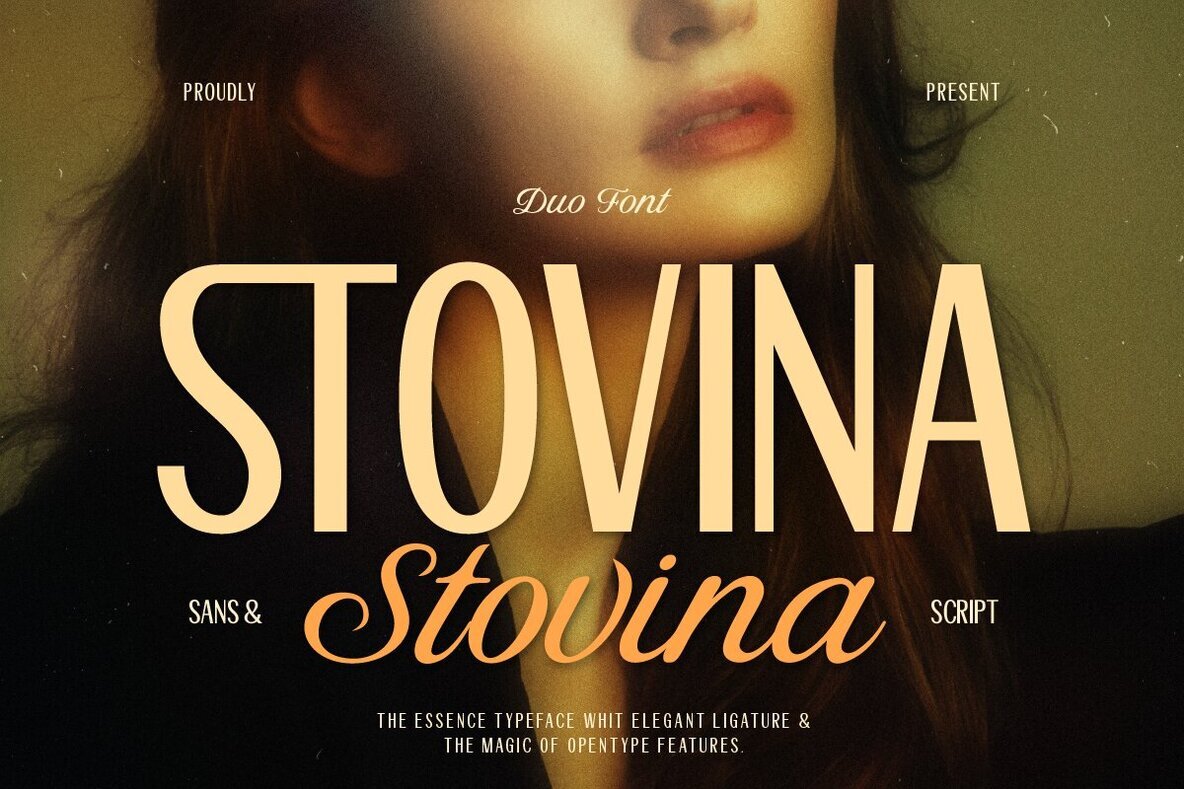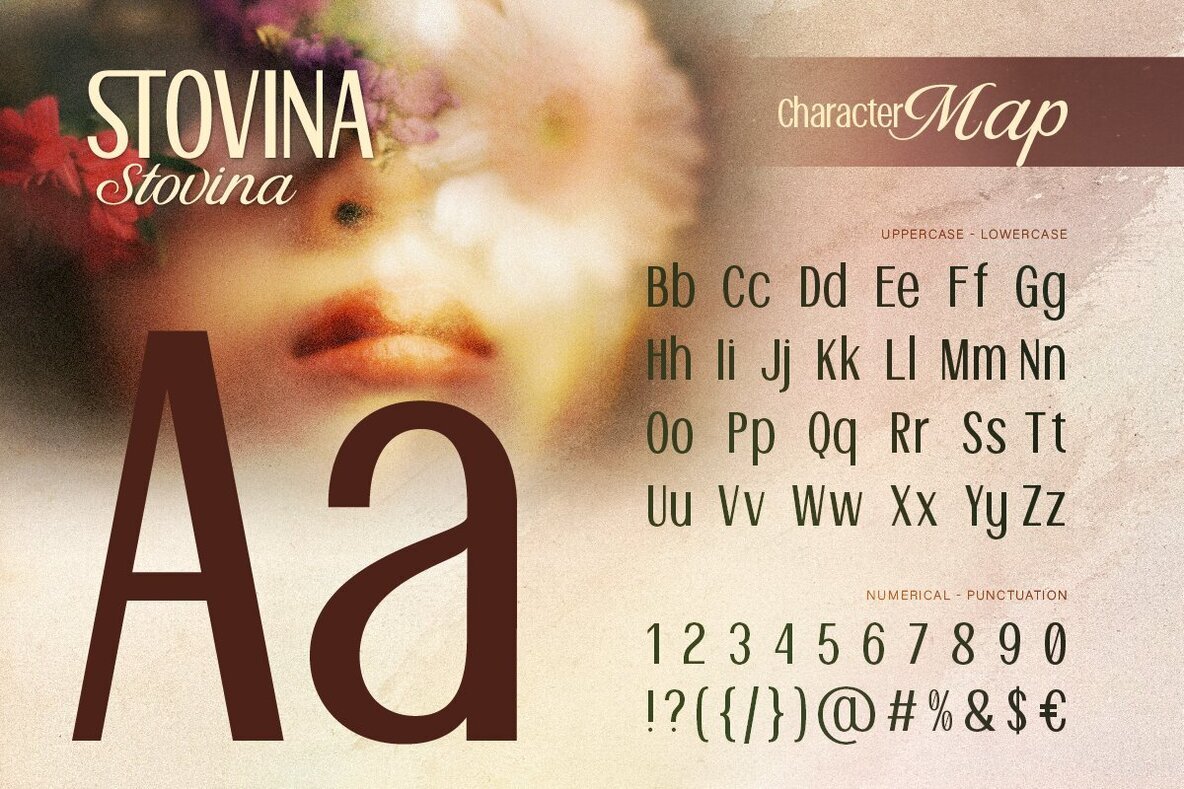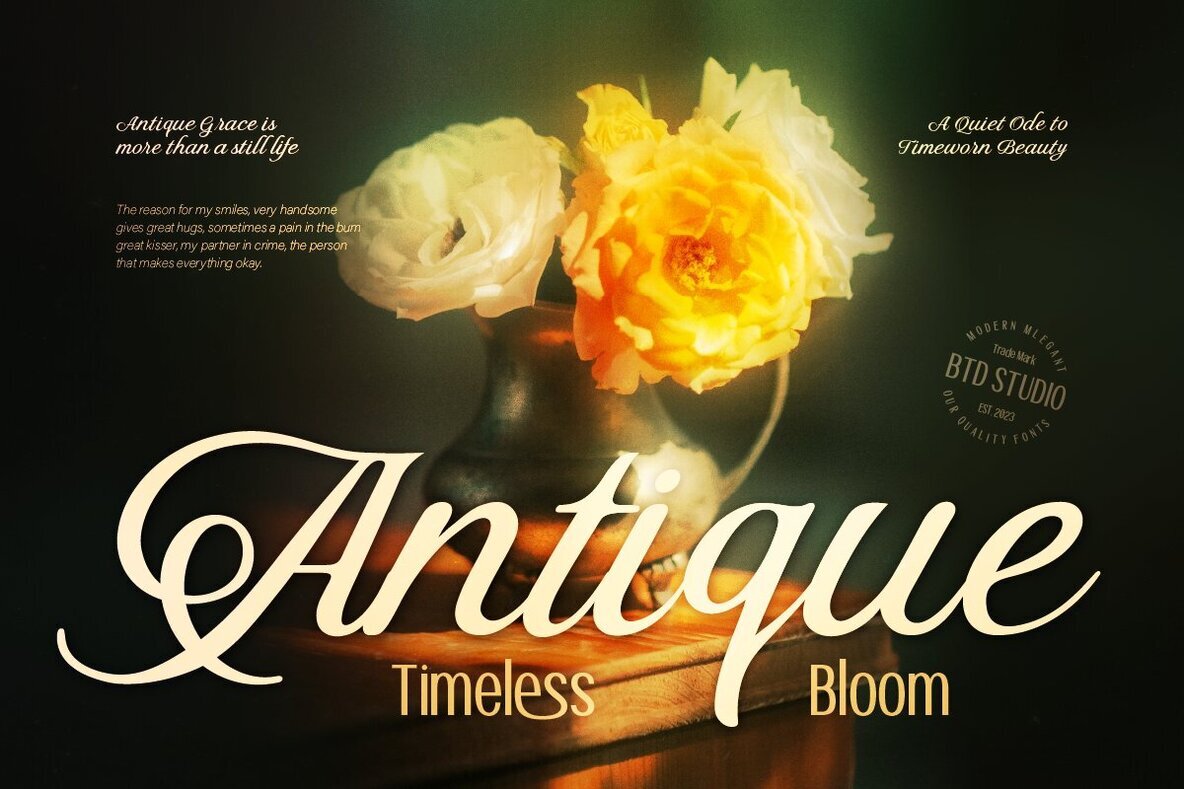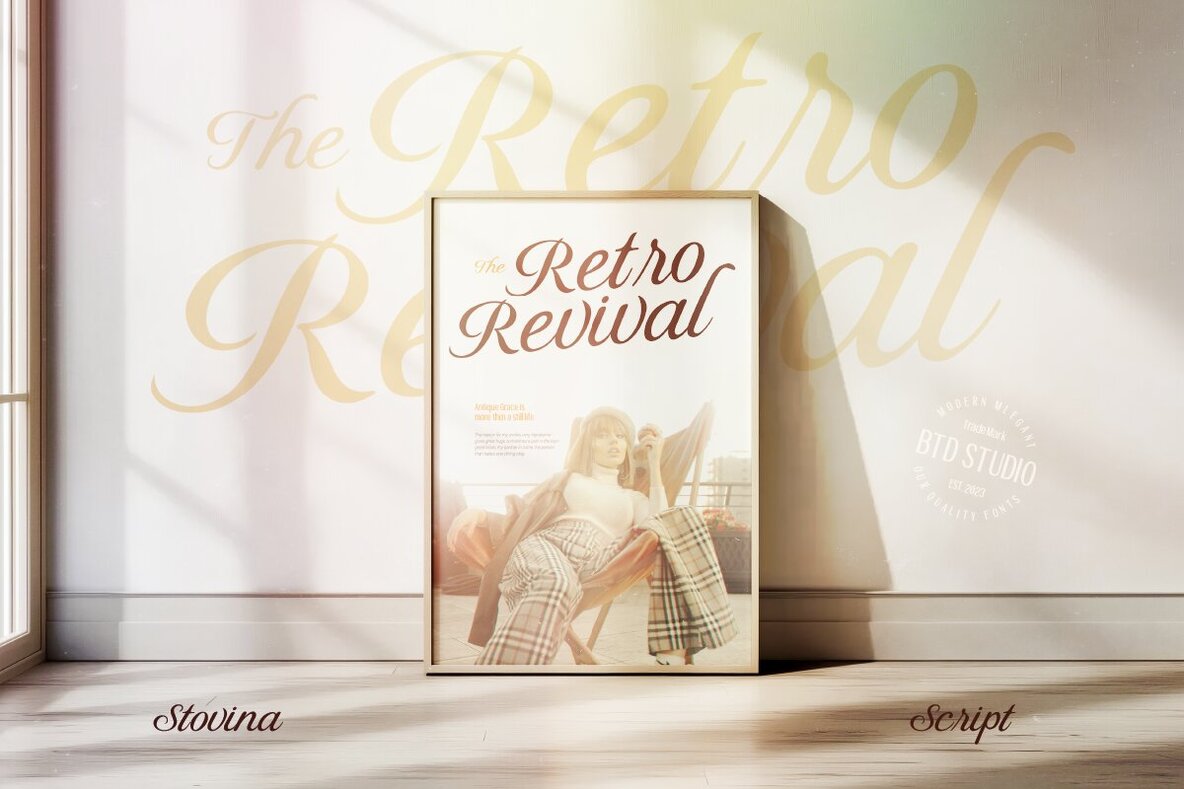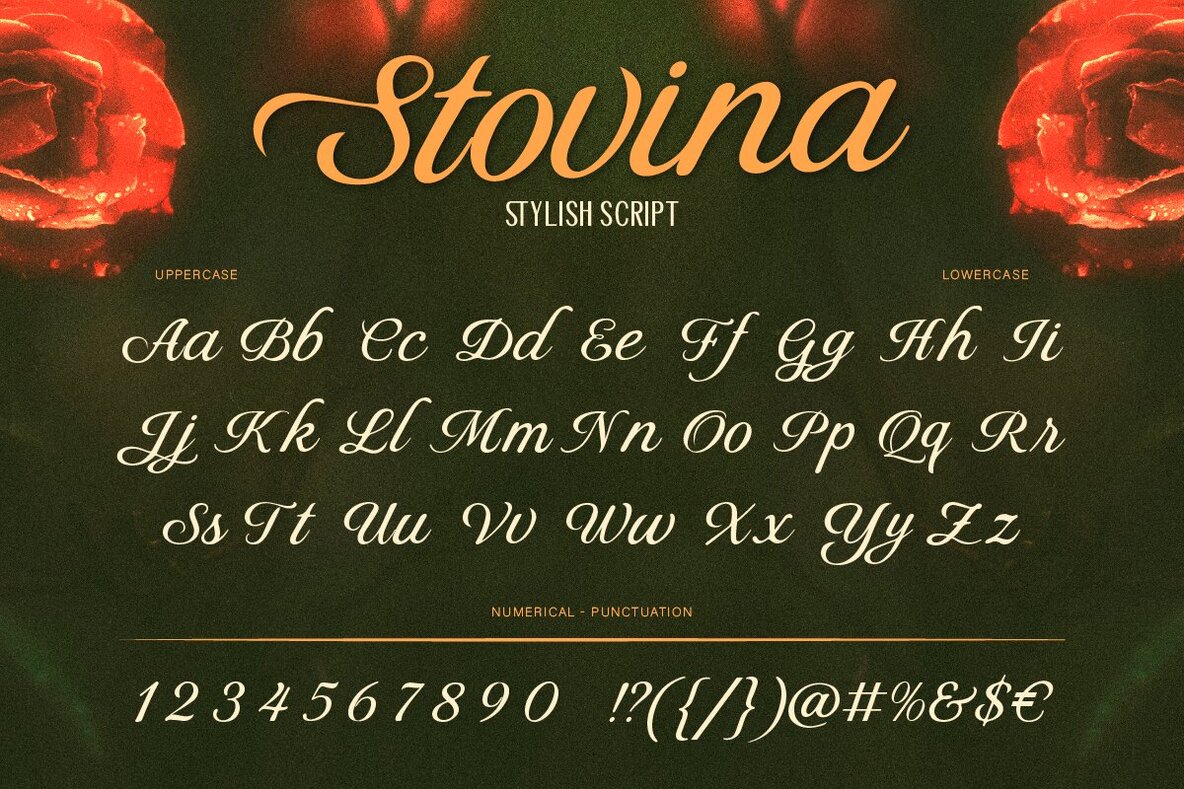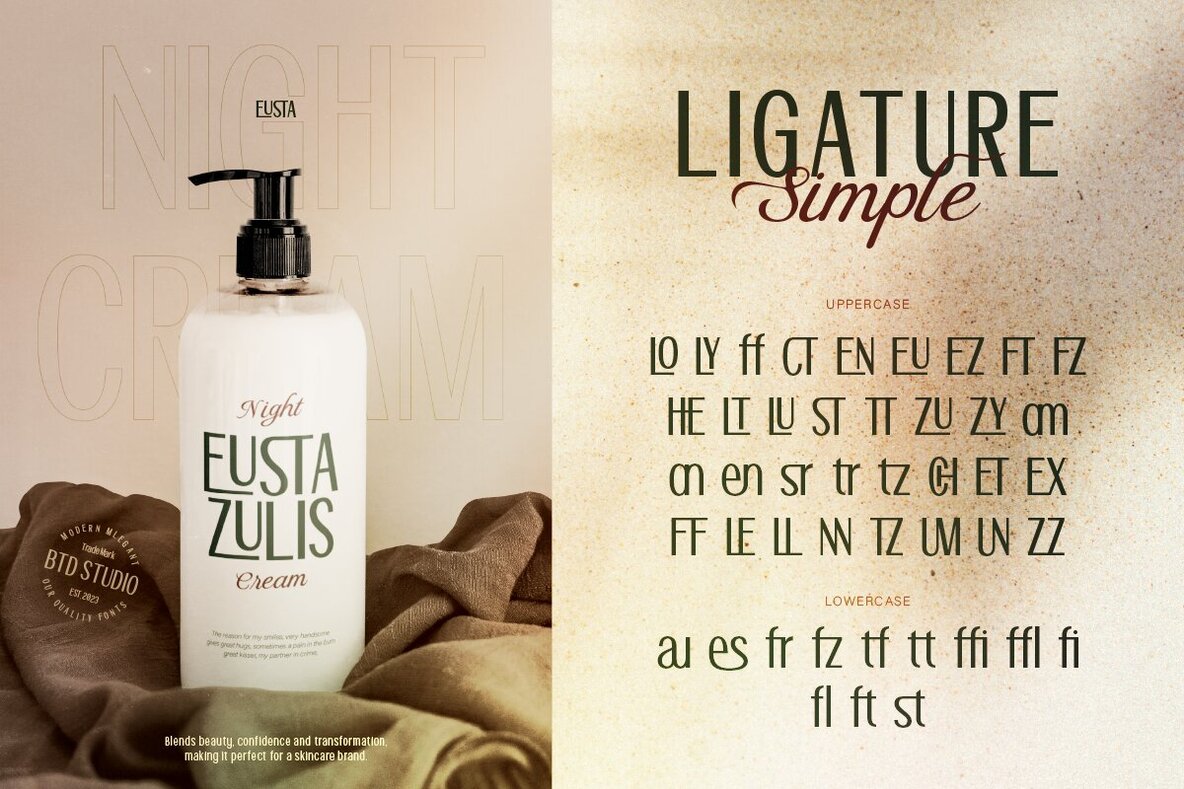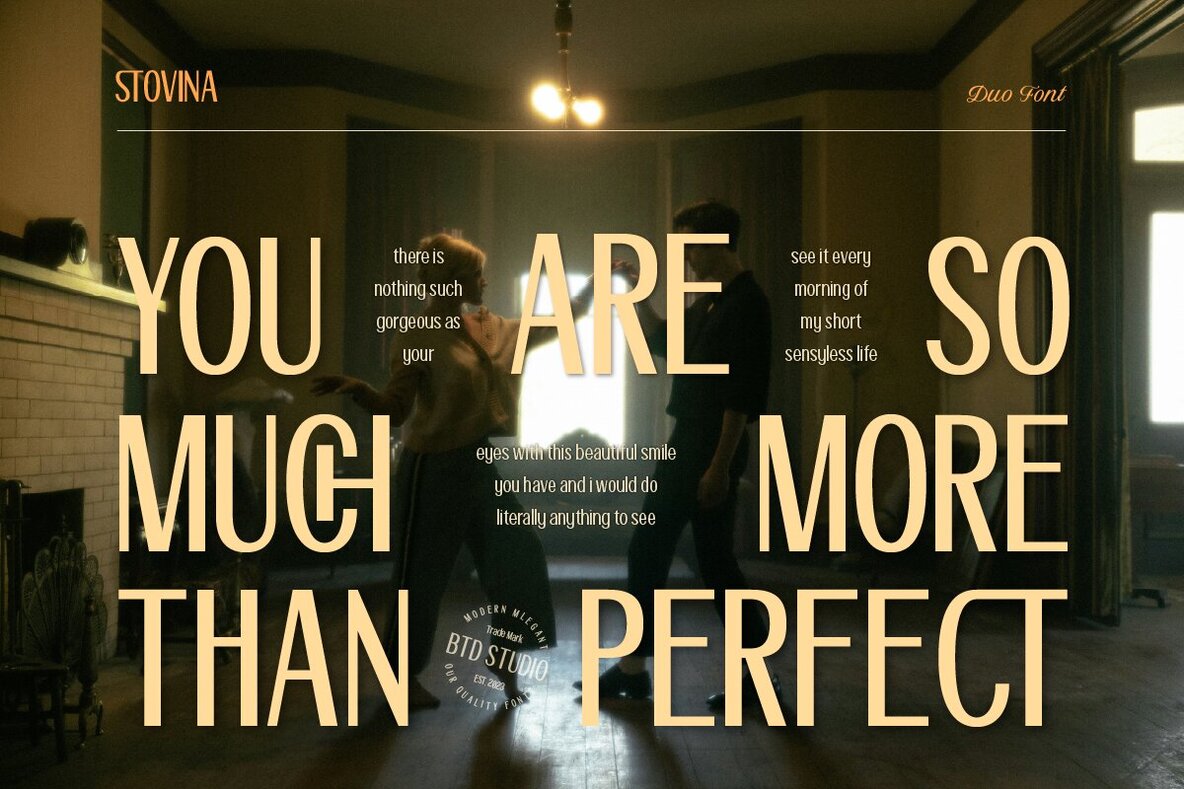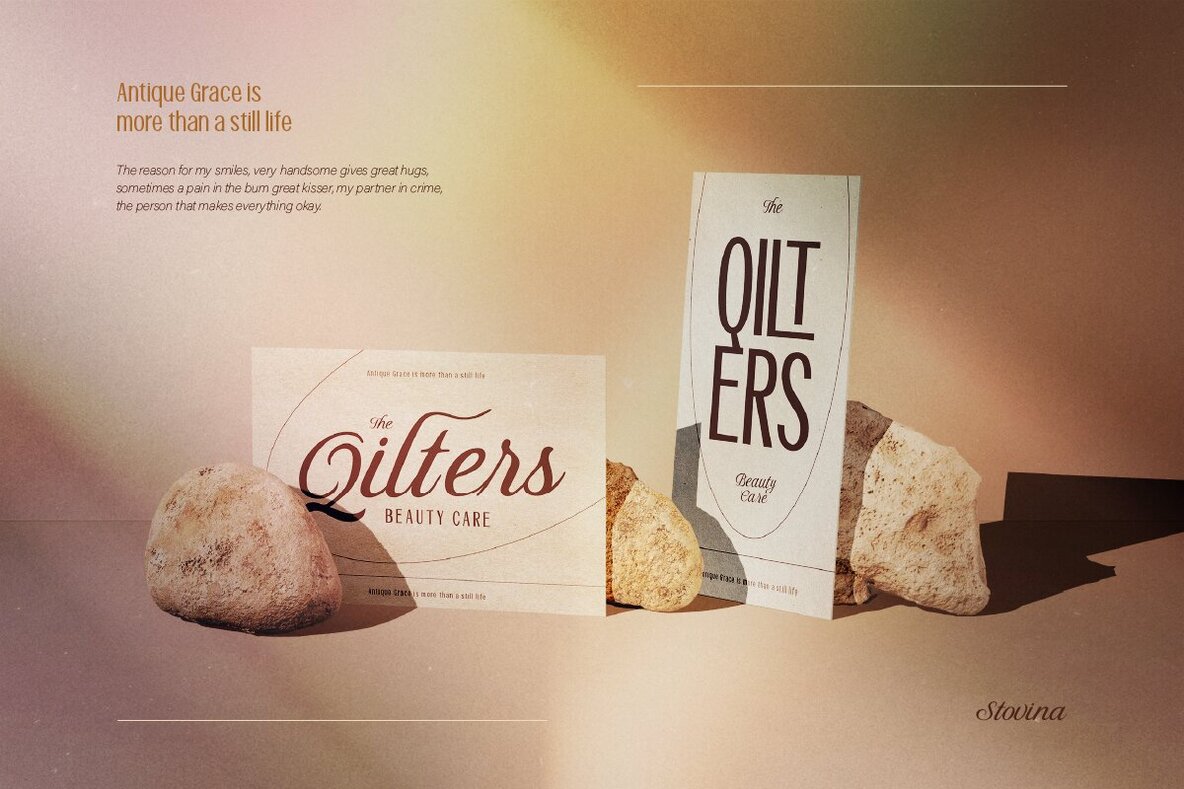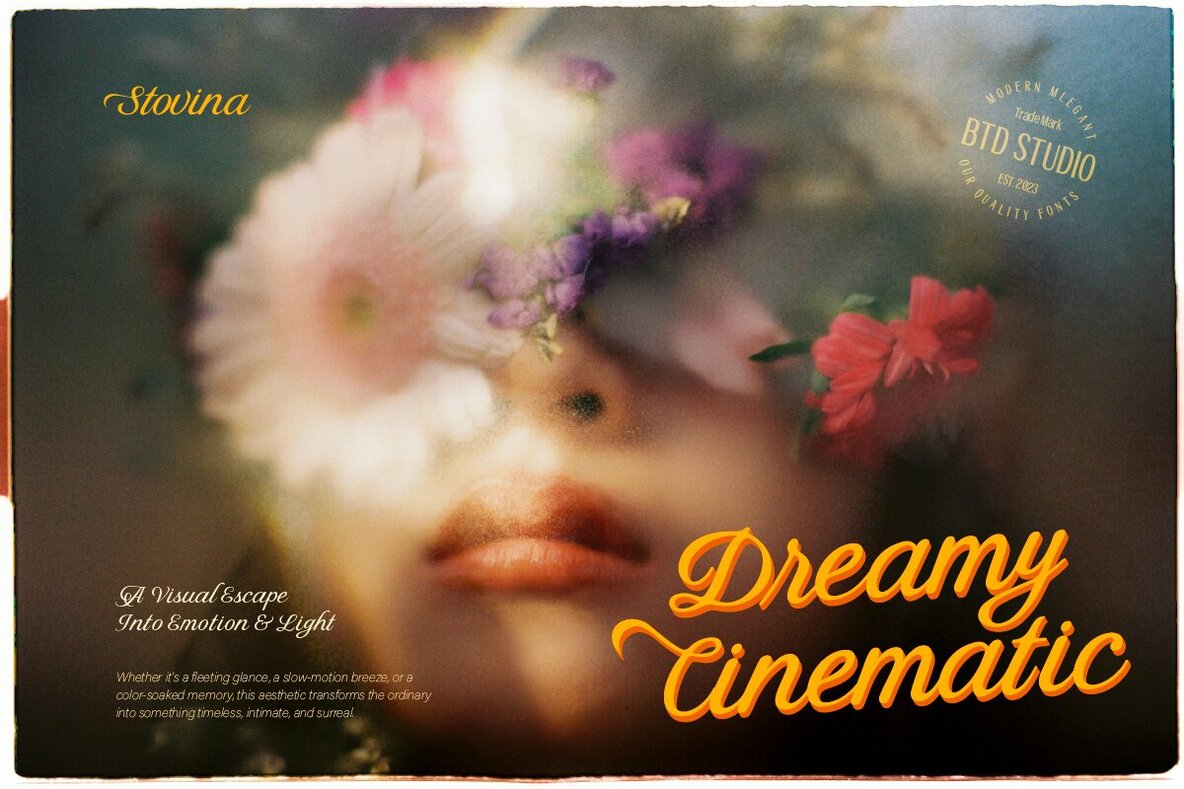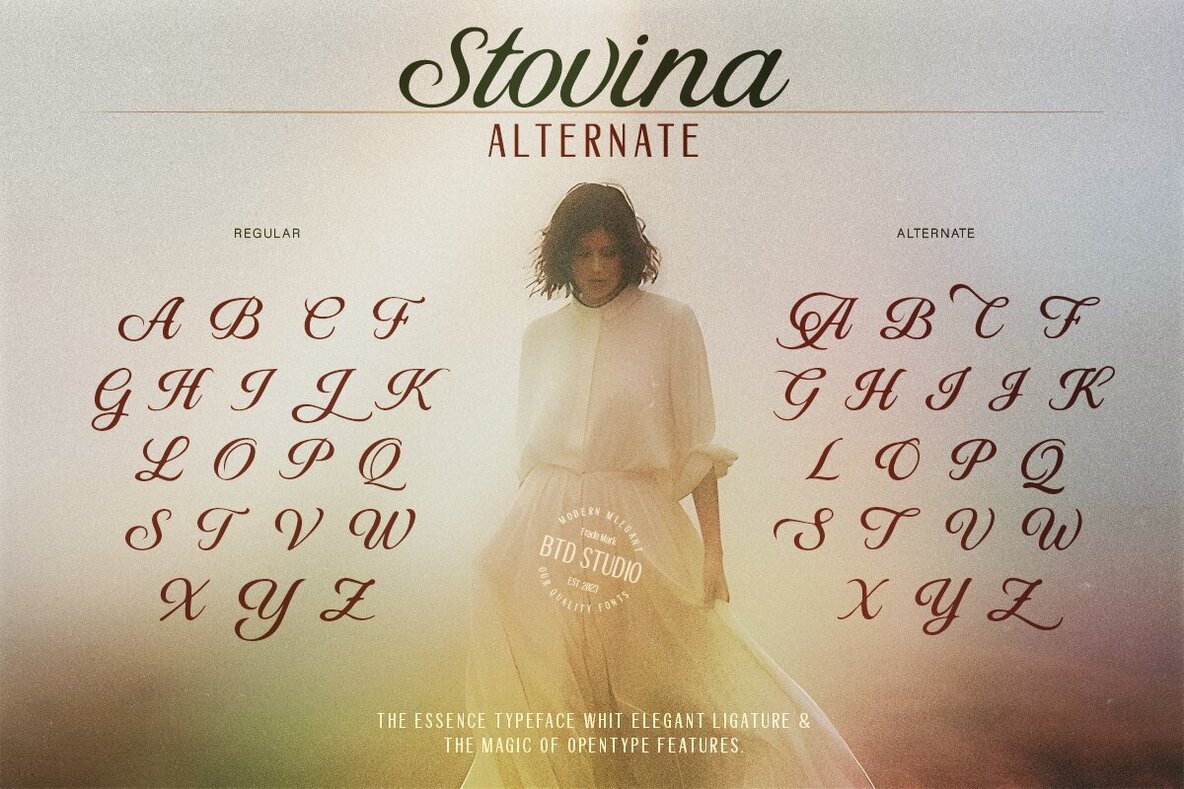
Stovina Font
Stovina Sans
Stovina Script
Introducing Stovina, a harmonious duo font that seamlessly integrates clean Sans Serif with a flowing Script, offering the perfect blend of professionalism and charm. Designed with meticulous ligatures and OpenType features, Stovina infuses sophistication into any creative endeavor.Stovina: A Stylish Duo Font for Elegant Designs
The Essence of Stovina